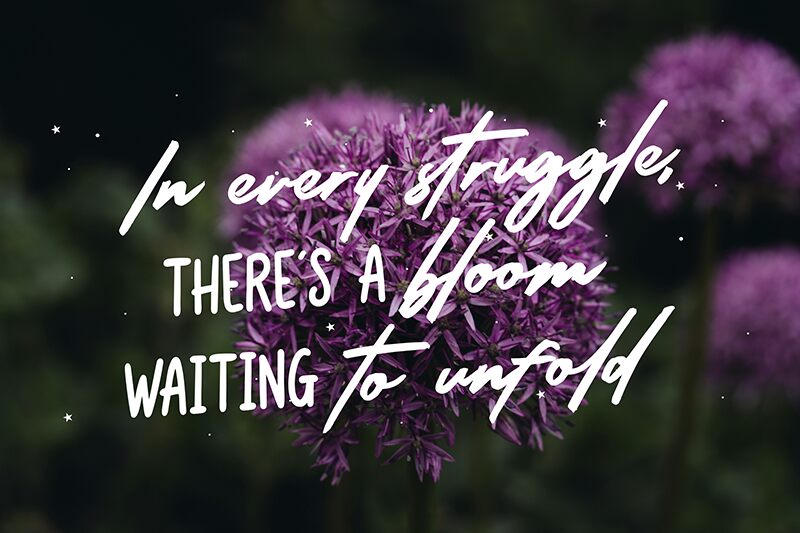
Radiant Brush
Radiant Brush font is an expressive brush font from designer Riyadh Rahman with a casual elegance, modern script style, and great condensed width. It has a handcrafted feel that always gives off energetic vibes. The style results from it being made to have its own dynamic character which makes it an excellent free handwritten font.
This can be used for logos, branding projects, greeting cards, invitations to events or parties, posters, music album covers, movie titles and more. It can wonderfully compliment your print designs for shirts or any visually attractive website frontpage or app interface you’re working on!